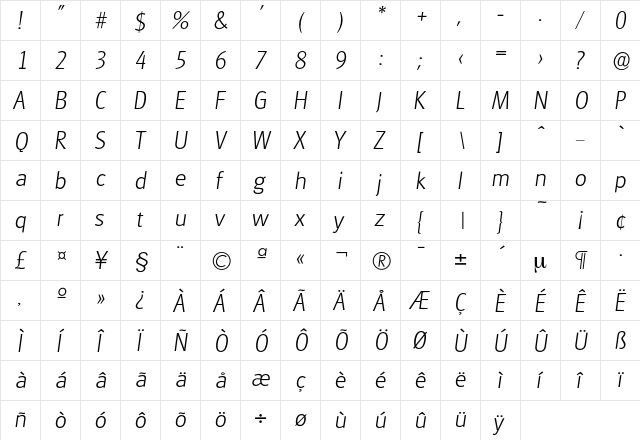
Glasgow-XlightIta Regular
Design Context for Glasgow-XlightIta Typeface
Glasgow-XlightIta offers clean, dependable letterforms without strong stylistic allegiance, making it a practical choice for designers who need flexibility. Its slender proportions lend an understated elegance to any composition.
Pro Tip: Use Glasgow-XlightIta in both headline and body roles to test its range before committing to a single application.